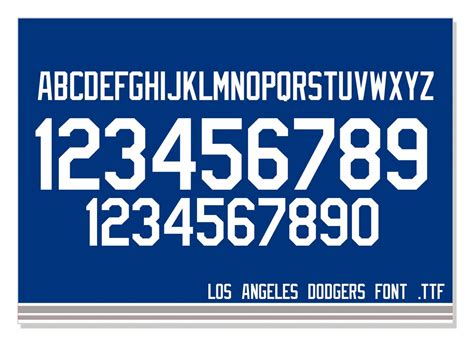
Los Angeles Dodgers Number Font: A Detailed Guide
The Los Angeles Dodgers number font is more than just a way to identify players; it’s a crucial element of the team’s brand identity, steeped in history and tradition. For fans, designers, and anyone interested in typography, understanding the intricacies of this font can offer a fascinating glimpse into the world of sports aesthetics. In this comprehensive guide, we’ll delve into the history, evolution, and significance of the Dodgers’ number font, exploring how it has become an iconic symbol of one of baseball’s most beloved teams.
History of the Los Angeles Dodgers Number Font
The history of the Los Angeles Dodgers number font is intertwined with the team’s rich legacy, dating back to their days in Brooklyn. The font has evolved over the years, reflecting changes in design trends and the team’s overall branding strategy. Initially, the Dodgers used a fairly simple and straightforward block-style font for their jersey numbers. This was typical of baseball teams in the early to mid-20th century, emphasizing clarity and legibility over elaborate design. The primary goal was to ensure that players could be easily identified on the field, and a clean, unadorned font served this purpose effectively.
As the Dodgers transitioned from Brooklyn to Los Angeles in 1958, their visual identity began to evolve as well. While the core elements of their uniform, such as the iconic Dodger blue, remained consistent, subtle changes were introduced to the number font. These changes often coincided with broader trends in graphic design, reflecting a move towards more modern and visually appealing aesthetics. Throughout the 1960s and 1970s, the font gradually became more stylized, with slight variations in the thickness and shape of the numerals. These modifications were aimed at enhancing the visual appeal of the jerseys while maintaining the font’s legibility.
The 1980s brought further refinements to the Los Angeles Dodgers number font . The team experimented with different styles, seeking to strike a balance between tradition and contemporary design. This era saw the introduction of subtle serifs and rounded edges, giving the numbers a slightly softer and more refined appearance. These changes were part of a broader effort to modernize the team’s image while staying true to its historical roots. The Dodgers recognized the importance of preserving their visual heritage, and any modifications to the font were carefully considered to ensure they aligned with the team’s established identity.
In more recent years, the Los Angeles Dodgers number font has undergone further updates to reflect the latest trends in sports branding. The team has worked with designers to create a font that is both modern and timeless, incorporating elements of classic typography with contemporary design principles. These updates have focused on enhancing the font’s visual impact and ensuring it remains recognizable and appealing to fans. The Dodgers understand that their visual identity is a valuable asset, and they continue to invest in maintaining and evolving their number font to meet the demands of the modern sports landscape. The font’s evolution is a testament to the Dodgers’ commitment to preserving their history while embracing innovation.
Key Characteristics of the Dodgers Number Font
The key characteristics of the Los Angeles Dodgers number font are what make it instantly recognizable and deeply associated with the team. Several distinctive features contribute to its unique identity, making it stand out from other sports fonts. Understanding these characteristics is essential for designers, fans, and anyone looking to replicate or analyze the font.
Firstly, the font is characterized by its clean and legible design . The numerals are designed to be easily readable from a distance, which is crucial for on-field visibility. This emphasis on legibility ensures that players can be quickly identified by fans and officials alike. The simplicity of the font also contributes to its timeless appeal, allowing it to remain relevant and effective across different eras.
Secondly, the Los Angeles Dodgers number font features a bold and sturdy construction . The numerals are typically rendered in a thick, robust style that conveys strength and stability. This boldness is not just an aesthetic choice; it also enhances the font’s visibility, making it stand out against the backdrop of the team’s uniform. The sturdy construction of the font reinforces the Dodgers’ image as a strong and resilient team.
Thirdly, the font often incorporates subtle serifs or rounded edges , which add a touch of refinement and sophistication. These small details soften the overall appearance of the numerals, preventing them from looking too harsh or industrial. The serifs and rounded edges contribute to the font’s balanced and harmonious design, making it visually appealing without sacrificing legibility.
Moreover, the font maintains a consistent letterform across all numerals. This consistency ensures that the numbers look uniform and cohesive, regardless of their specific values. Whether it’s a single-digit number or a double-digit number, the font maintains a consistent style and appearance. This uniformity is essential for maintaining the team’s visual identity and ensuring that the jerseys look polished and professional.
Finally, the Los Angeles Dodgers number font is typically rendered in the team’s signature colors, most notably Dodger blue. The use of this iconic color further reinforces the font’s association with the team, making it instantly recognizable to fans. The color is an integral part of the font’s identity, and it plays a significant role in the overall visual impact of the Dodgers’ uniforms. These key characteristics, taken together, define the Dodgers’ number font and contribute to its enduring appeal.
Finally, the Los Angeles Dodgers number font has been incorporated into video games and digital media. Its presence in these platforms allows fans to experience the font in new and interactive ways. The font’s versatility makes it a valuable asset for designers and developers looking to create visually engaging content. Its adaptability ensures that it remains relevant and appealing in the ever-evolving landscape of digital media. The Los Angeles Dodgers number font is not just a typeface; it’s a living symbol that continues to evolve and inspire.